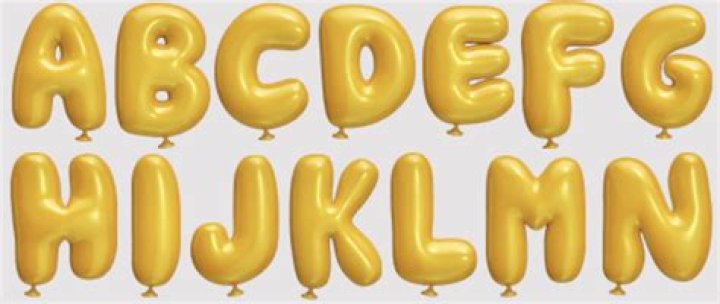
Balloon is a brush script commonly used for signage or display purposes. It was designed in 1939 by Max R. Kaufmann, for American Type Founders, in response to Howard Allen Trafton’s Cartoon, cut for Bauer Type Foundry in 1936.
What is the best font for balloons?
12 Best Bubble Balloon Fonts for Organic Look
• Splash is a fun handwritten font!
Is there a font that looks like bubble letters?
While Publisher doesn’t come standard with an actual bubble font, some bubble-like included fonts are Aharoni, Bauhaus 93, Hobo Std and Snap ITC. Another option to get bubble letters in your Publisher documents is to download a bubble letter font.
How do you make twisted balloon text in Illustrator?
How to Create a Twisted Balloon Text Effect in Adobe Illustrator
1. Create a New Document and Set Up a Grid.
2. Create the Main Shape and Add Subtle Shading & Highlights.
3. Create a Set of Rounded Rectangles.
4. Create Several Blends.
5. Create the Opening Side of the Balloon.
6. Create the Deflated End of the Balloon.
7. Save the Three Patterns.
What can you do with a balloon font?
Amazing balloon font letters that you can use to create birthday cads, wedding cards, party flyers, etc. Create a balloon text in just a few seconds. You can easily change the color of the balloon foil text using the Hue filter.
How to use balloon text generator?
Using this Balloon text generator is incredibly simple to use. All you have to do is write up your normal text in the column on the left and you will see that the text is getting automatically crossed out in the column on the right. Simple and easy to use Balloon text generator.
How to change the color of the balloon foil text?
You can easily change the color of the balloon foil text using the Hue filter. Amazing balloon font letters that you can use to create birthday cards, wedding cards, party flyers, etc. Create a balloon text in just a few seconds. You can easily change the color of the balloon foil text using the Hue filter. How Does It Work?
How do I create a balloon on my website?
Just add the text in the given area, click on the Generate Balloon! button. Result is not image or HTML, but plain text which able to paste to anywhere, include facebook (status post/chat/comments), twitter, instagram, whatsapp, discord, blog and etc.